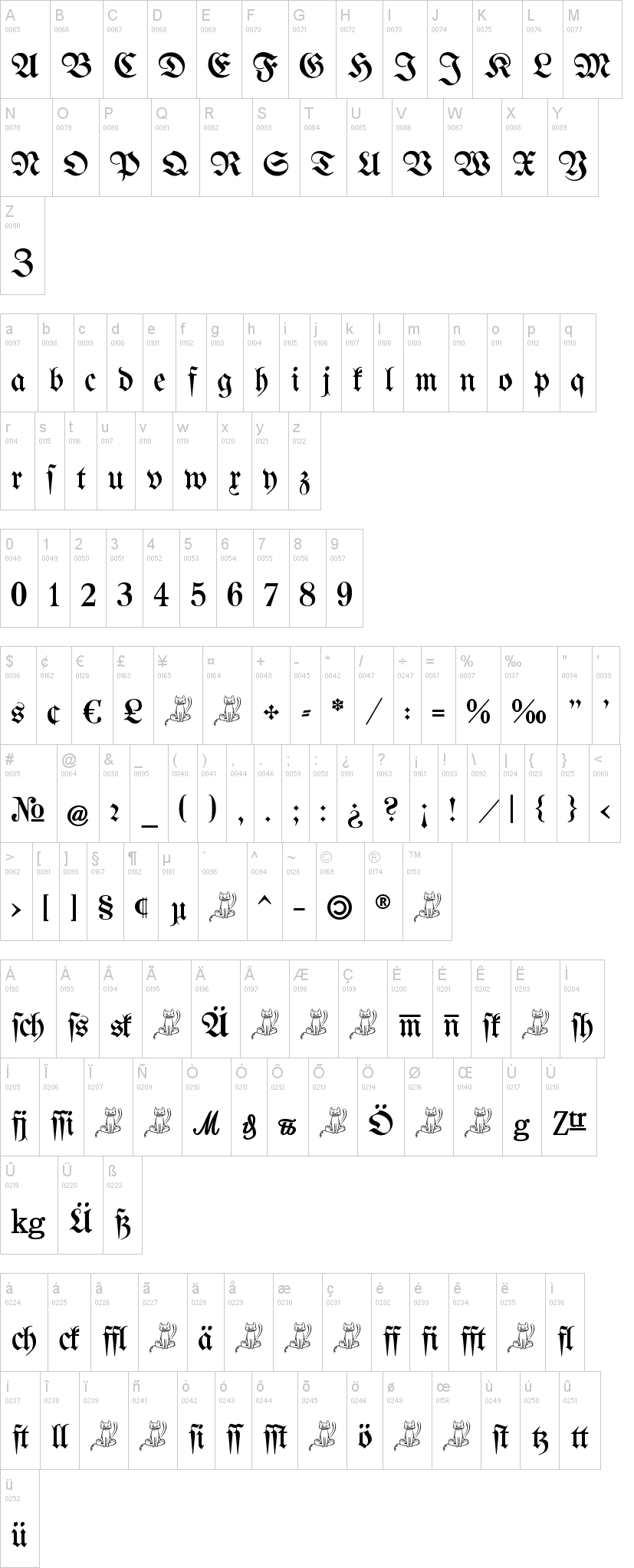
Шрифт Bertholdr Mainzer Fraktur
Original 1900 style "Fraktur" used in many german books, Some more ligatures added, a "how to" for the ligatures added to the package